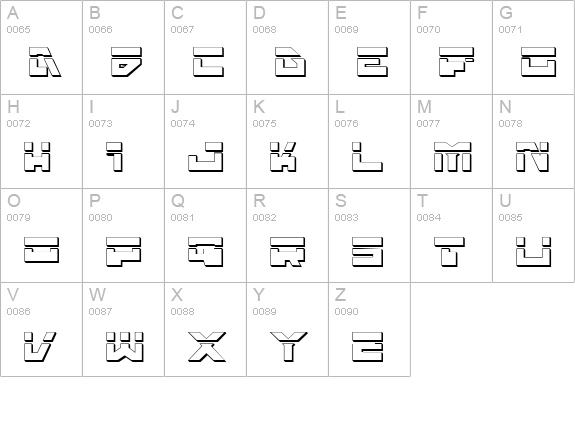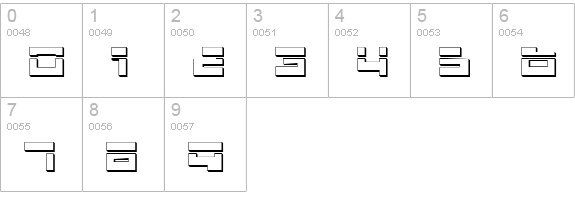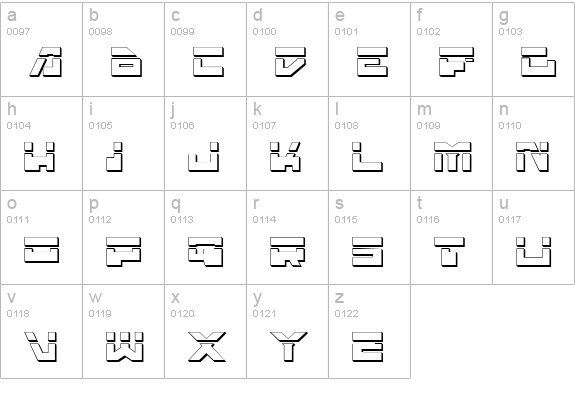
Introducing the mesmerizing Trajia Laser 3D font, a stunning typeface that will surely captivate your audience with its futuristic and dynamic design. This cutting-edge font boasts intricate details and a three-dimensional effect that adds depth and sophistication to any project. What sets Trajia Laser 3D font apart is its unique blend of precision and creativity, making it perfect for a wide range of designs, from posters and flyers to digital art and branding materials. Whether you're looking to make a bold statement or add a touch of modern flair to your work, this font is sure to impress. The best part? Trajia Laser 3D font is available for free download at FontsMarket.com, giving you easy access to this premium font without breaking the bank. Don't miss out on the opportunity to elevate your designs with this eye-catching typeface. Download Trajia Laser 3D font today and let your creativity shine!